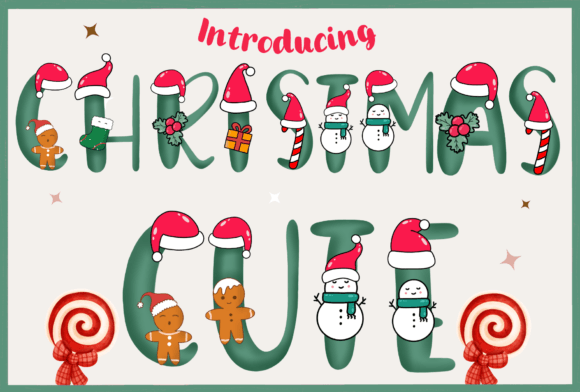
Introducing Christmas Cute Font, the perfect addition to your fonts' collection! Created by Itme_digitalart, this organic and beautiful decorative font is sure to captivate your imagination. With its lovely ornaments and charming design, Christmas Cute Font is the go-to choice for adding a touch of elegance to any project.
Whether you're designing wedding invitations, greeting cards, or even social media graphics, this font is a must-have. Its versatility allows it to seamlessly blend into any theme or style, making it the ultimate tool for expressing your creativity.
Imagine the joy and excitement your recipients will feel when they receive a wedding invite adorned with the enchanting Christmas Cute Font. Its mesmerizing curves and graceful strokes will instantly transport them to a world of love and celebration.
But it doesn't stop there! This font goes beyond just weddings. With its timeless appeal, it can elevate any occasion, from birthdays and anniversaries to holiday festivities. Let your imagination run wild as you create stunning designs that leave a lasting impression.
Christmas Cute Font is more than just a font, it's an experience. Its carefully crafted details and intricate ornaments evoke a sense of wonder and delight. It's the perfect choice for those who appreciate the finer things in life and seek to make a lasting impact with their designs.